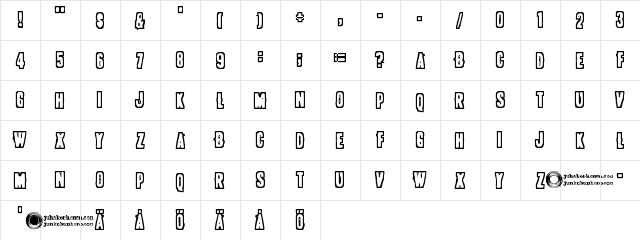
POLLUX9300 Regular
Design Context for POLLUX9300 Typeface
POLLUX9300 offers clean, dependable letterforms without strong stylistic allegiance, making it a practical choice for designers who need flexibility.